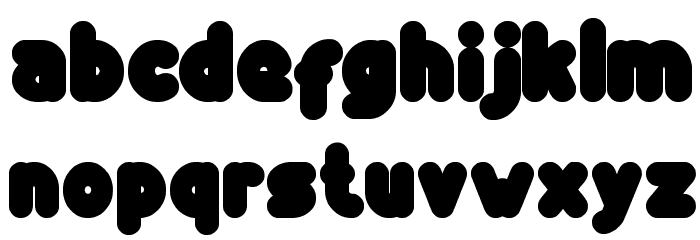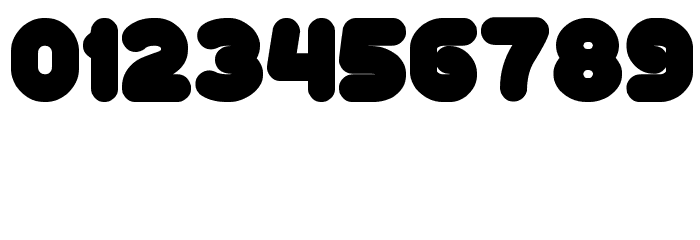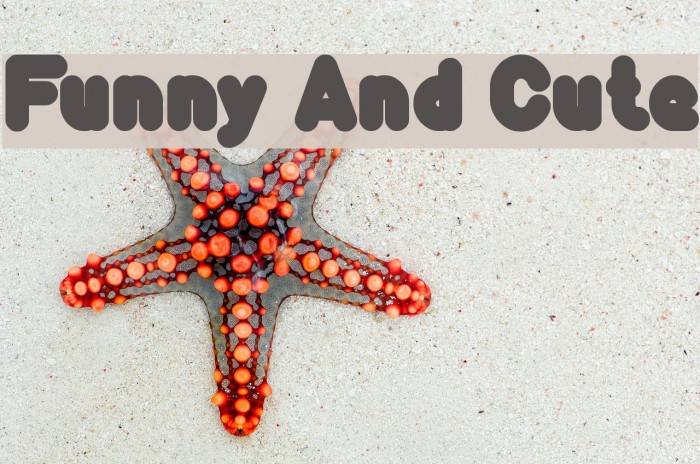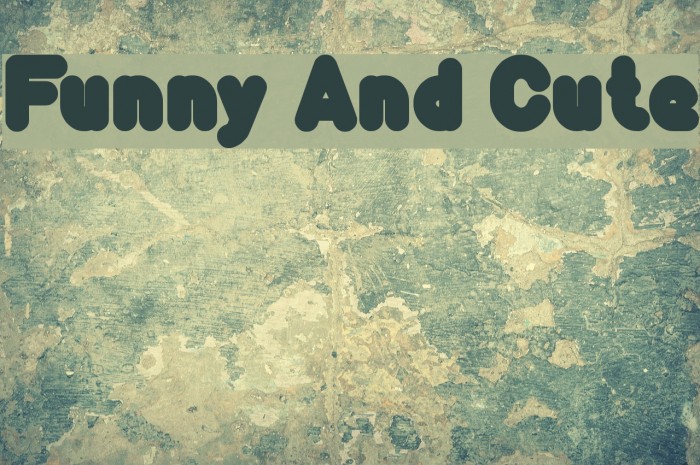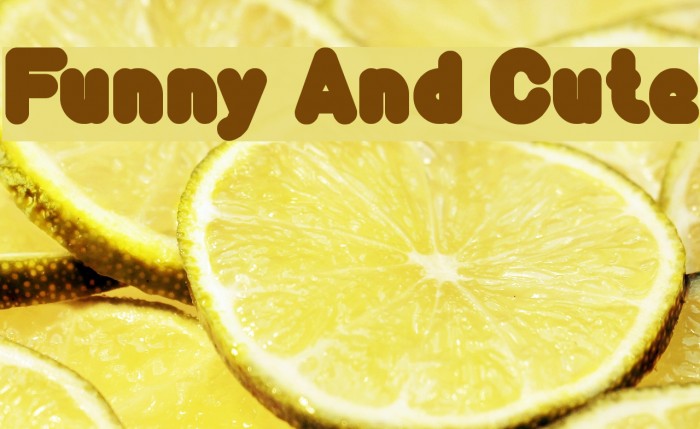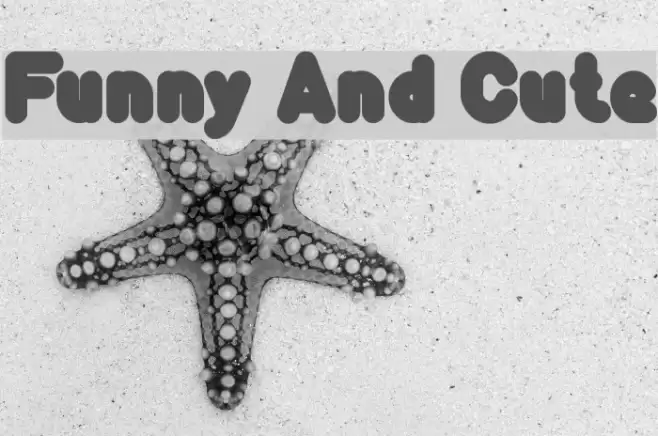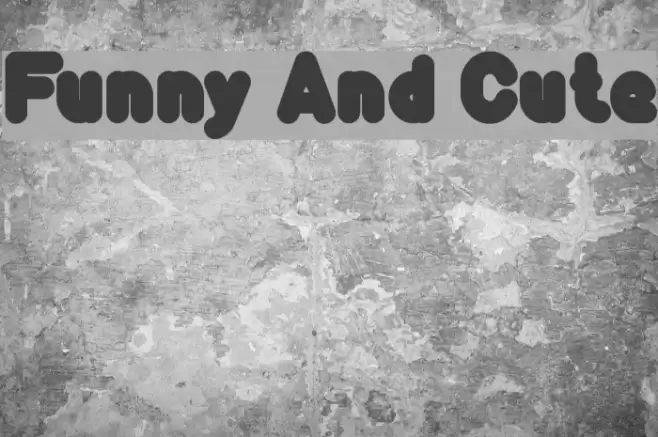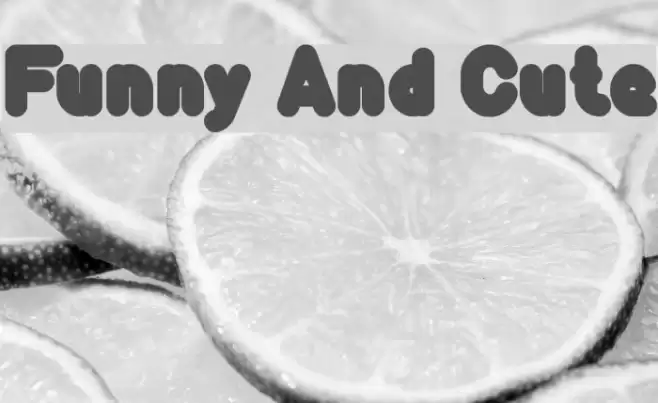
Funny And Cute Font
This playful and bold font features rounded, bubble-like characters that exude a sense of fun and whimsy. The letters are thick and uniform, with a consistent stroke width that gives them a strong presence on the page. The rounded edges and soft curves create a friendly and approachable aesthetic, making it ideal for designs that aim to convey warmth and cheerfulness. The font maintains a consistent weight throughout, ensuring readability while adding a touch of personality. Its unique style makes it stand out, perfect for projects that require a distinctive and lively typeface.
A bold, rounded font with a playful and whimsical style.
- Proposed Projects: Ideal for children's books, playful branding, party invitations, and fun social media graphics.
- Overall Style: Playful, Fun